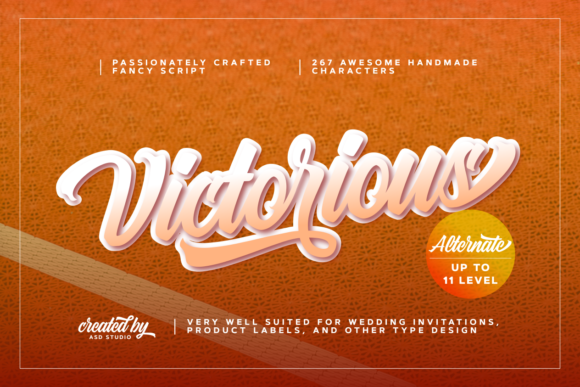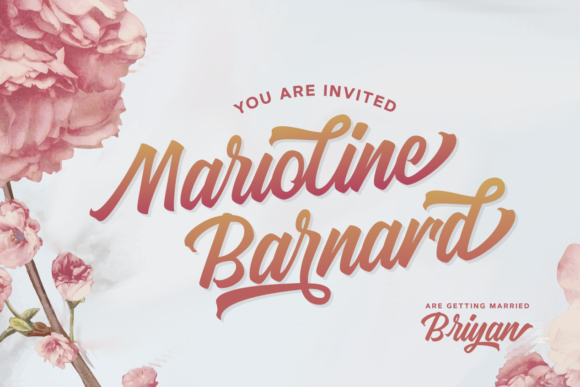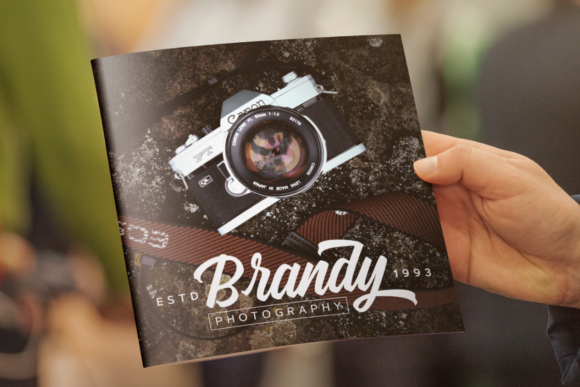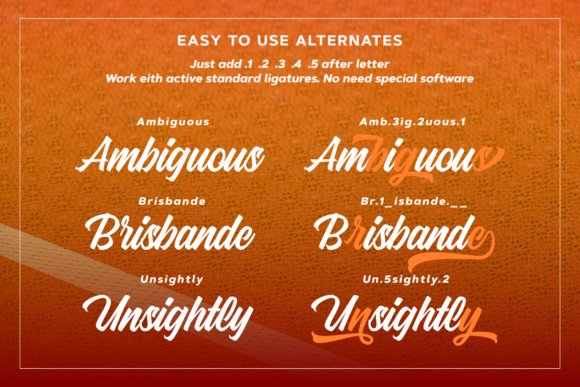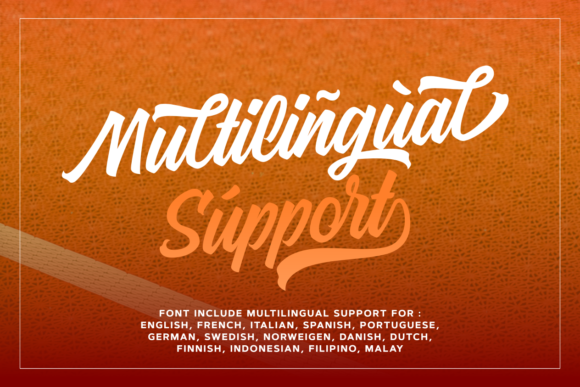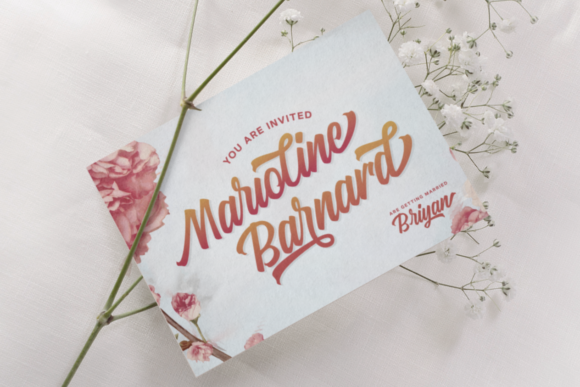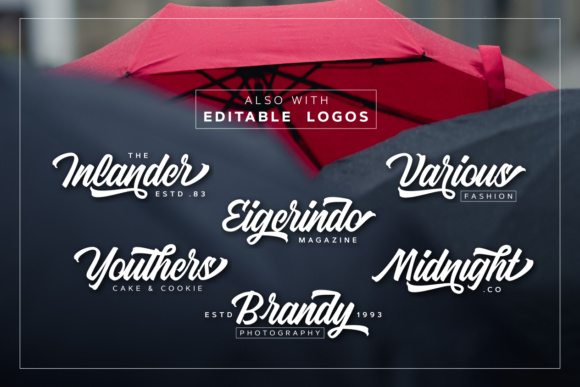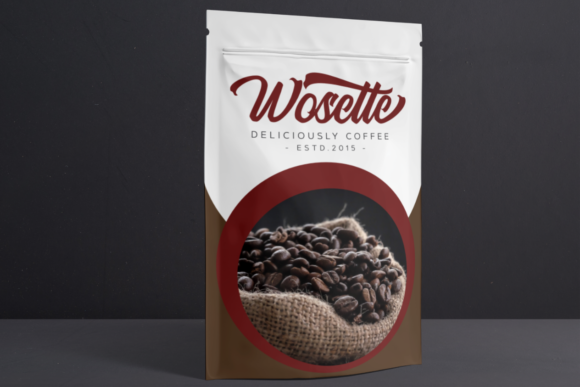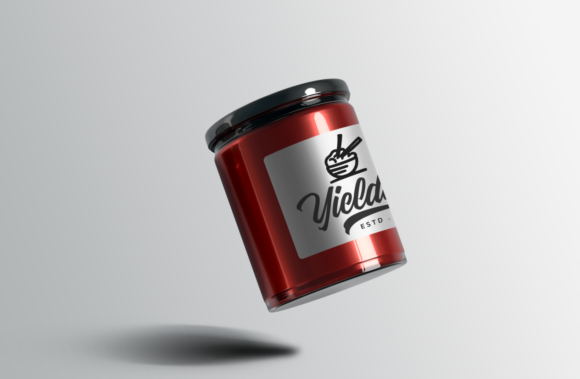
HomeScript FontsVictorious Font Script Fonts Victorious Font FacebookXPinterestWhatsApp Victorious Font Poster 2 Victorious Font Poster 3 Victorious Font Poster 4 Victorious Font Poster 5 Victorious Font Poster 6 Victorious Font Poster 7 Victorious Font Poster 8 Victorious Font Poster 9 About Victorious Font Victorious is a bold and fun script that’s perfect for any vintage themed design! DOWNLOAD ON CREATIVE FABRICAThis font is sold and delivered by Creative Fabrica. Font Canyon may earn a commission if you buy through this link. People also explored Pirulen Sekala Font Superfan Monograms Daniella Font Sheraton Font Summer Pencil Font Matterhon Script Font Basttena Font Mandalica Font 281 0 TagsVictorious Font Previous articleAndalusia FontNext articleSeiroetan Font LEAVE A REPLY Cancel reply Comment: Please enter your comment! Name:* Please enter your name here Email:* You have entered an incorrect email address! Please enter your email address here Website: Save my name, email, and website in this browser for the next time I comment. Personal Use Free Madison Script Personal Use Free Read more about this font Colombia Personal Use Free Read more about this font Fibon Personal Use Free Read more about this font Splatter Splash Personal Use Free Read more about this font BLOG Free vs Paid Fonts: Why Investing in Premium Fonts Is Worth It Free vs Paid Fonts: Why Premium Fonts Are Worth It in 2025 The debate of free vs paid fonts continues in the design world. While... Exploring Font Trends 5 Fonts That Will Dominate Design Trends in 2026 How to Cut Any Font on Cricut: Convert a Font to SVG (Free)